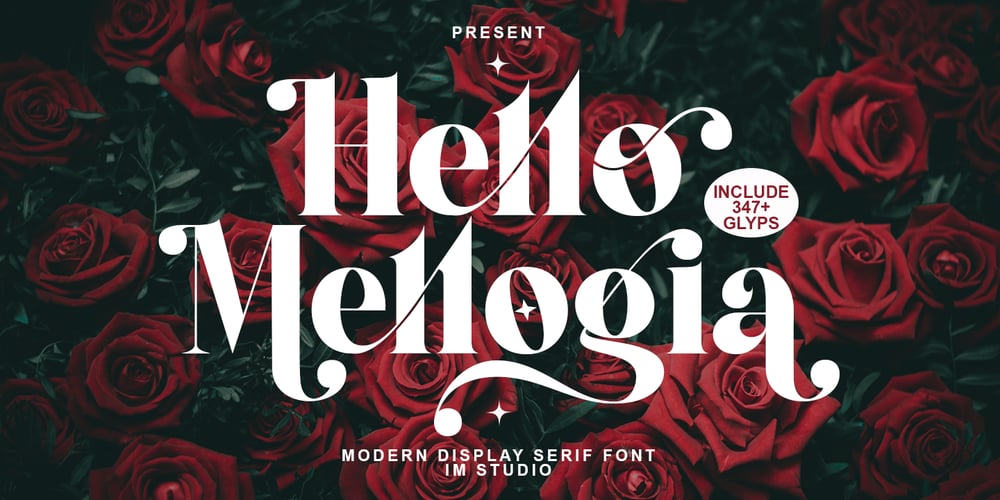
Hello Mellogia Font Family was designed by Ikhsan Maulana and published by IM Studio. Hello Mellogia contains 1 styles and family package options. Hello Mellogia is a modern vintage serif font packaged in a modern and classy style,complete with access your OpenType features to access a large selection of alternative fonts and bindings,Choose the font you like from large and small font variations for a luxurious and elegant look.A unique, fun and versatile serif family with 26+ binders and 100 alternatives to perfect any design you love. This font is perfect for branding projects, Logo design, Apparel Branding, packaging, magazine titles, advertisements, T-shirts, postcards and more.This typeface has been enriched with additional alternate characters of up to 350 glyphs.Hope it helps to capture the soul of any design. Finally, there are no words to say other than “Success and enjoy.Hello Mellogia is encoded with PUA Unicode, which allows full access to all additional characters without having to design any special software. Mac users can use Font Book, and Windows users can use Character Map to view and copy any additional characters to paste into your favorite text editor/app.How to access all alternative characters using Adobe Illustrator:https://www.youtube.com/watch?v=XzwjMkbB-wQ